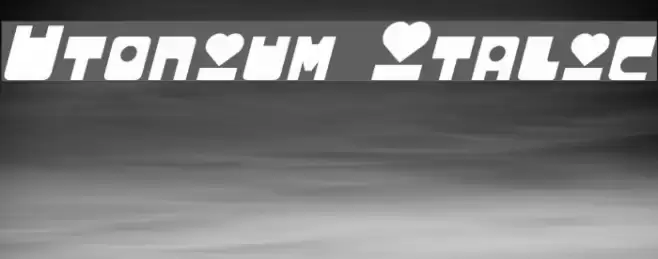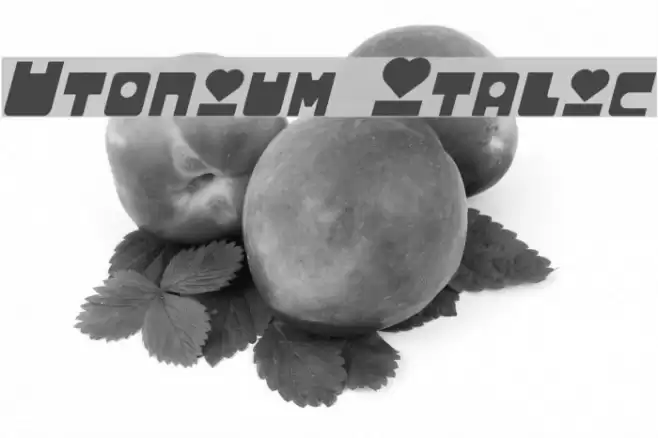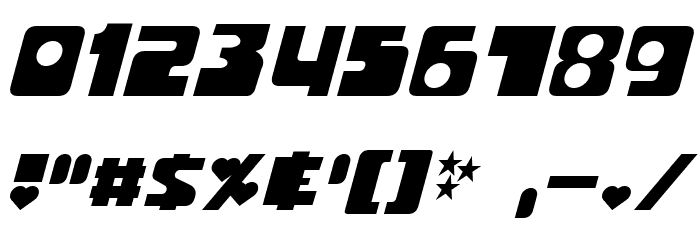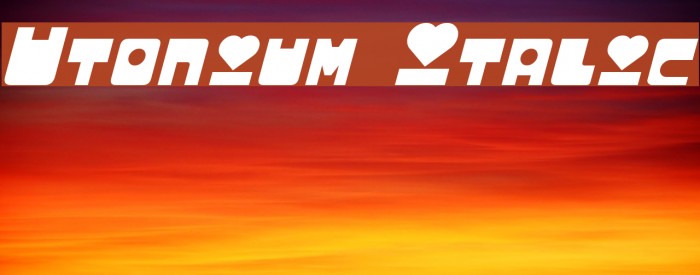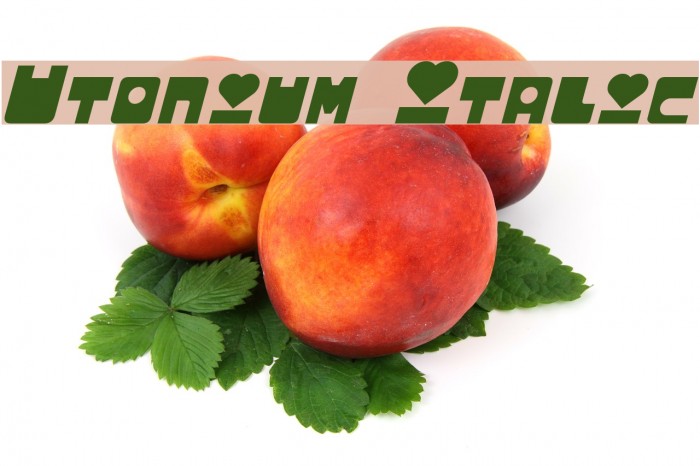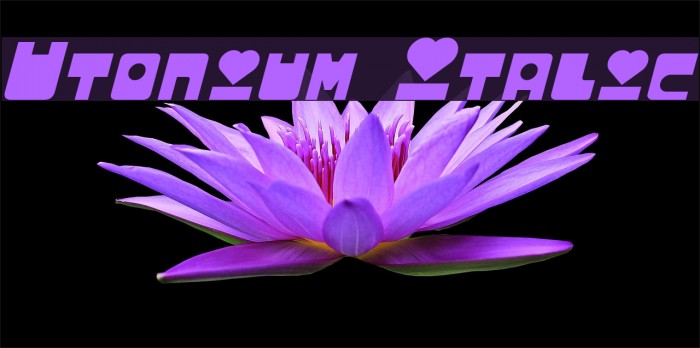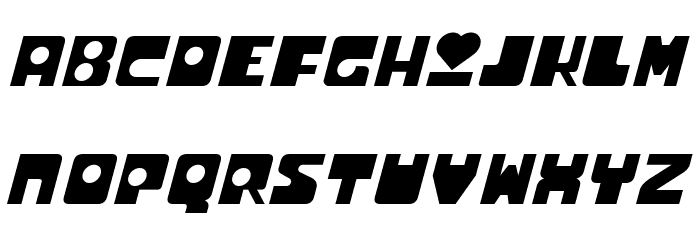
Utonium Italic Font
Utonium Italic Description
This font presents a bold and dynamic style with a distinct italic slant, giving it a sense of movement and energy. The characters are blocky and geometric, with sharp angles and a consistent stroke width that adds to its bold appearance. Unique features include the heart-shaped character, which adds a playful touch to the otherwise robust design. The uppercase and lowercase letters maintain a uniform style, ensuring readability while still being visually striking. The numbers and special characters follow the same design principles, making the font versatile for various uses. Its strong presence makes it ideal for attention-grabbing headlines or logos.
A bold, geometric italic font with a playful and dynamic style from Uncategorized fonts.